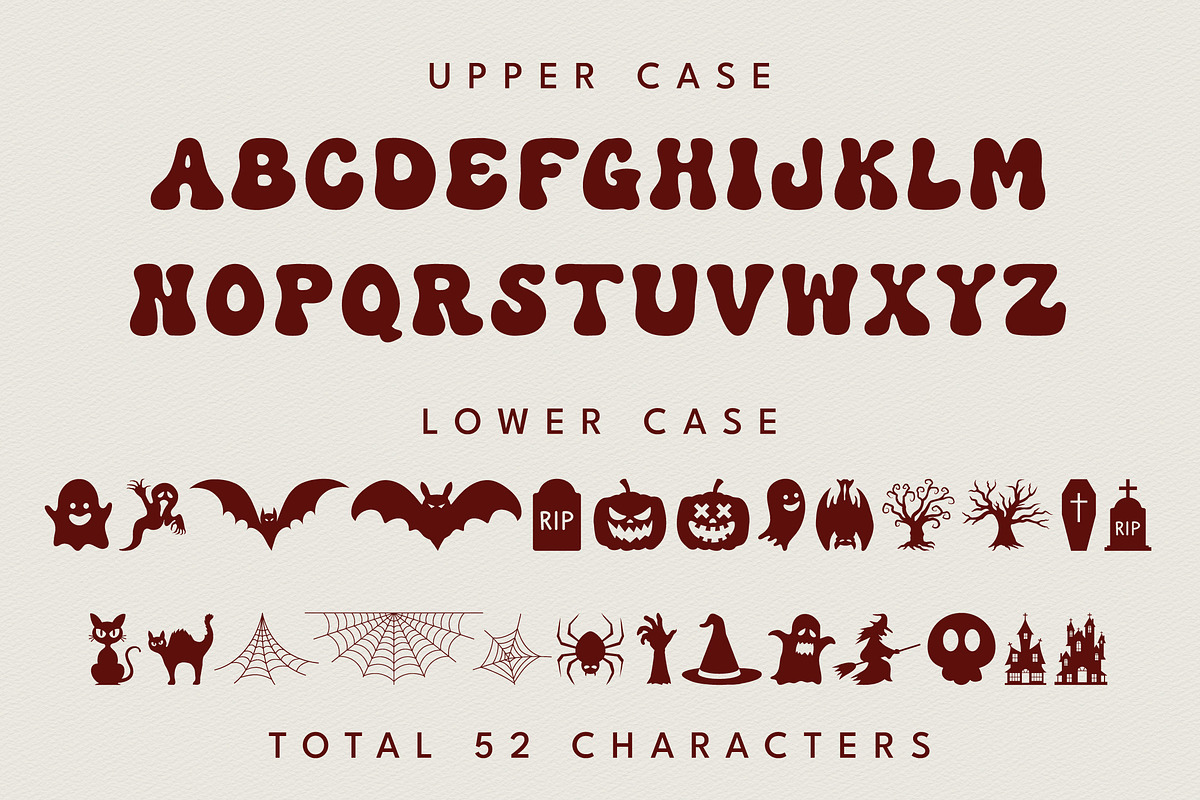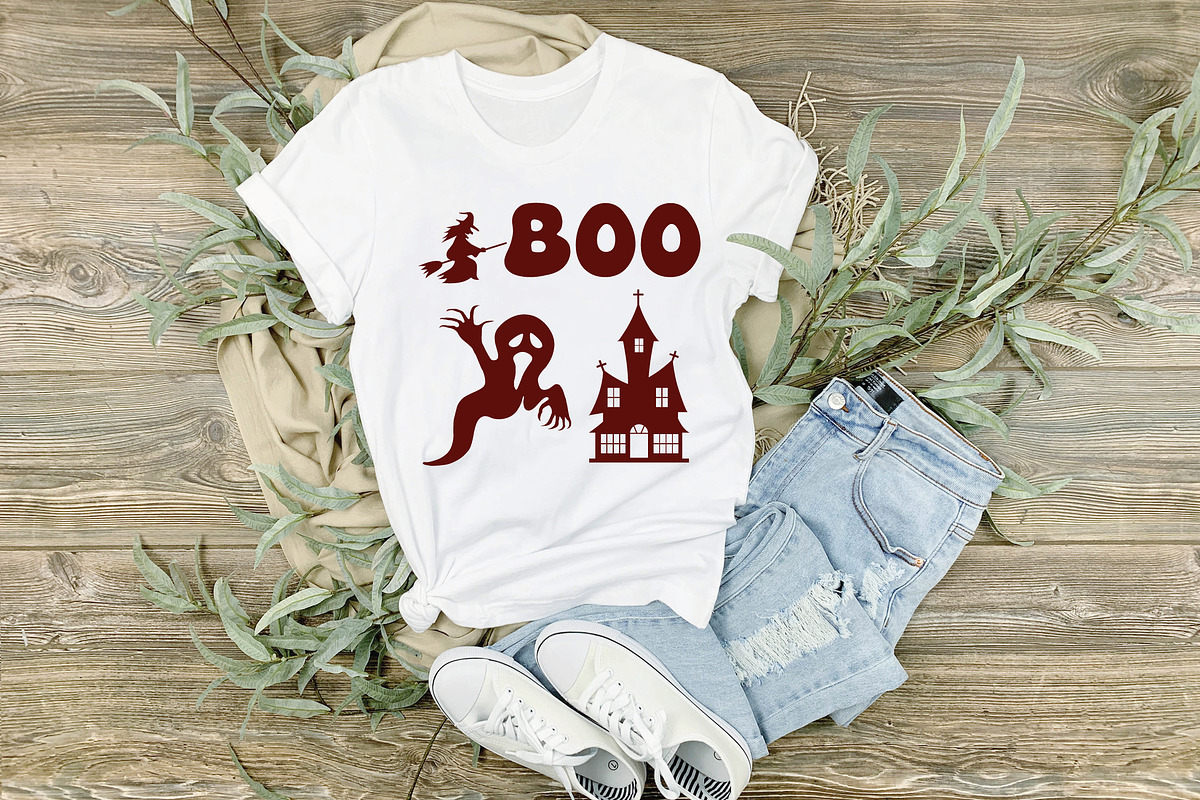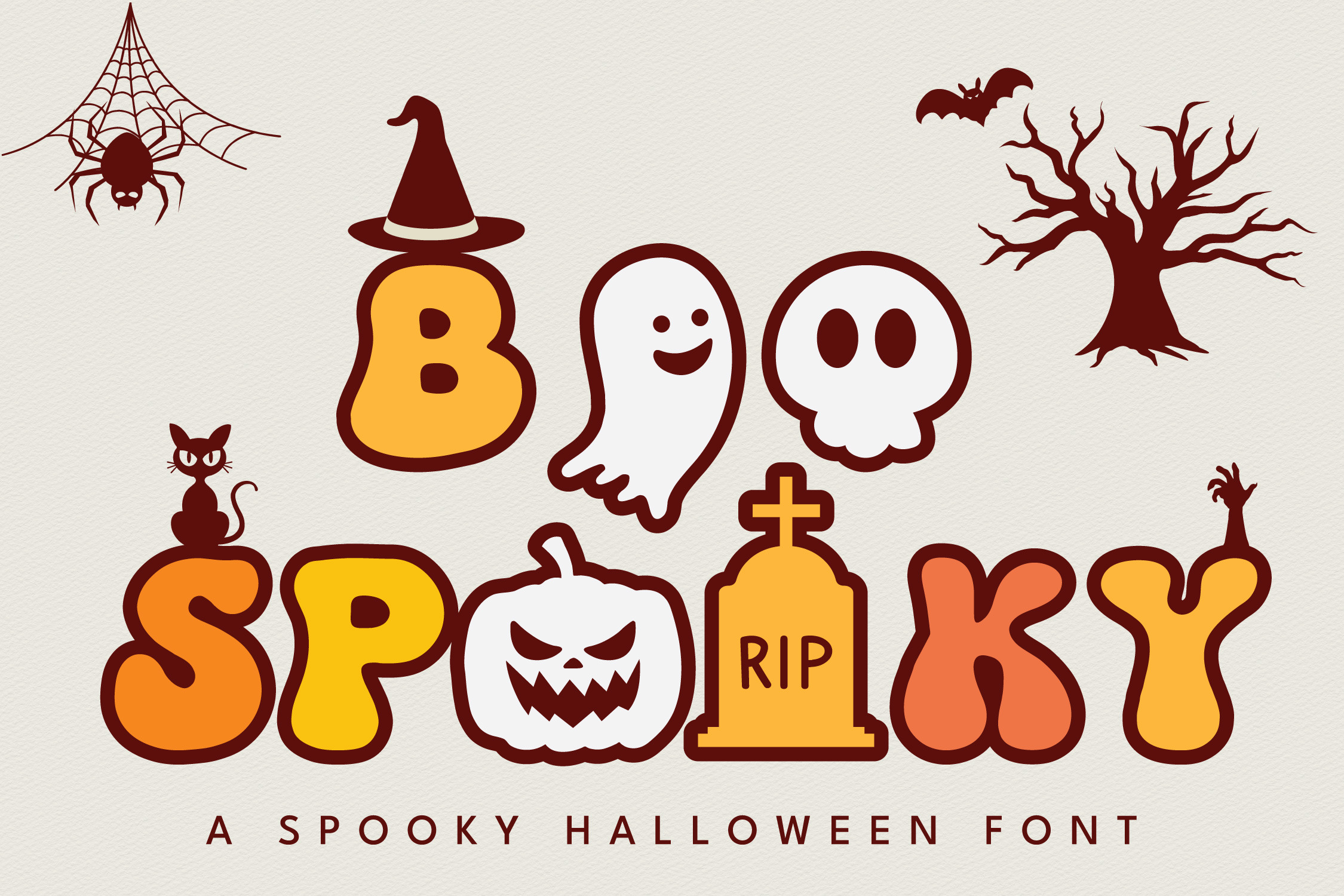
Boo Spooky Halloween Fonts symbol
Boo Spooky is a spooky Halloween font. Scary, weird, and creepy. It will add a touch of horror to any design project! It is the perfect choice for any project like party invitations, spooky signage, and be witching crafts. Let your words cast a bewitching spell this Halloween!